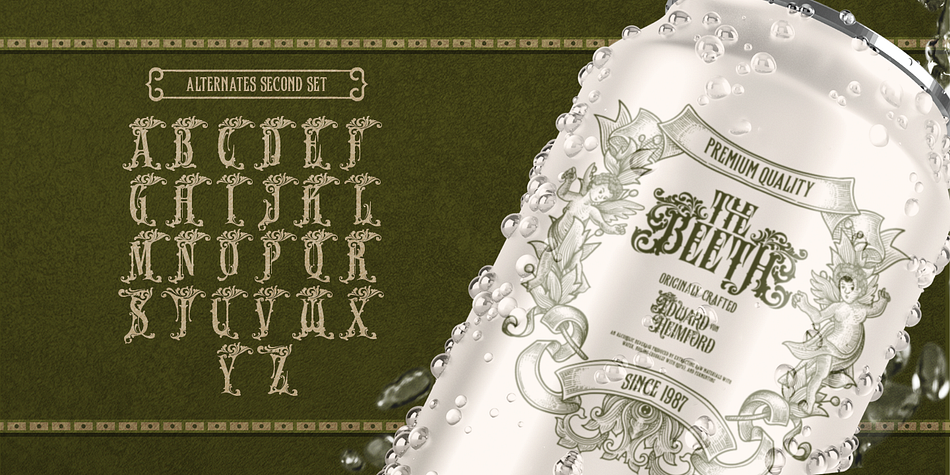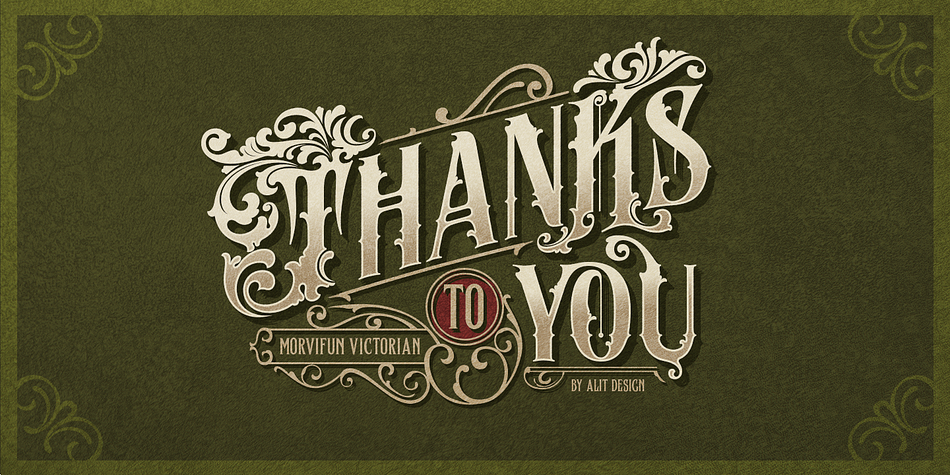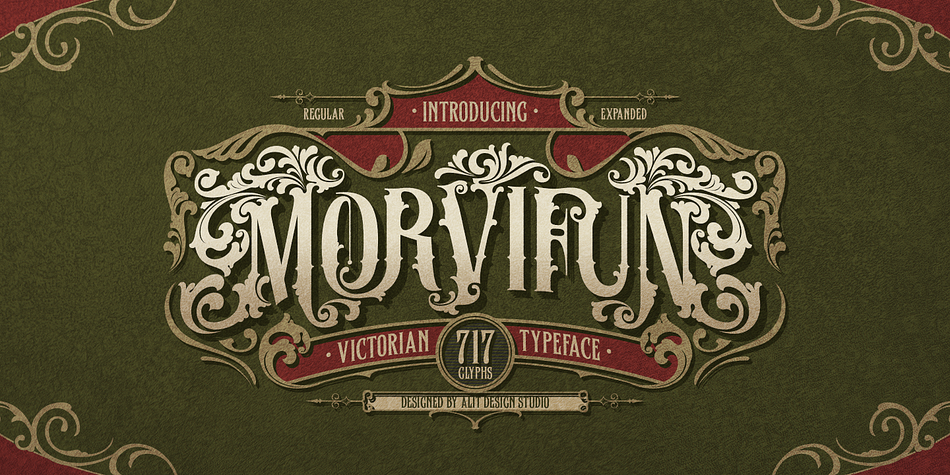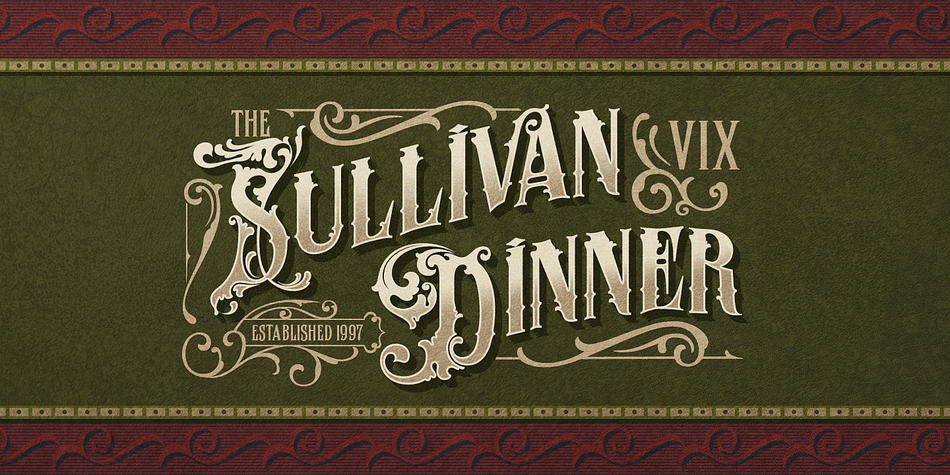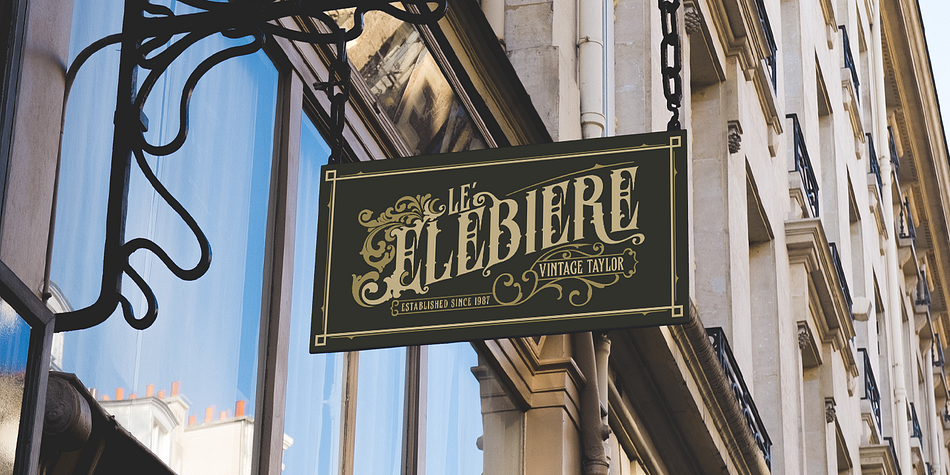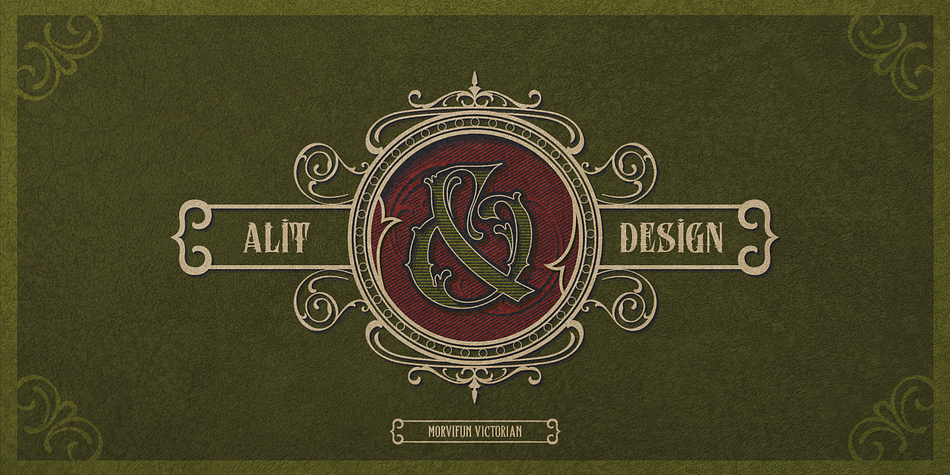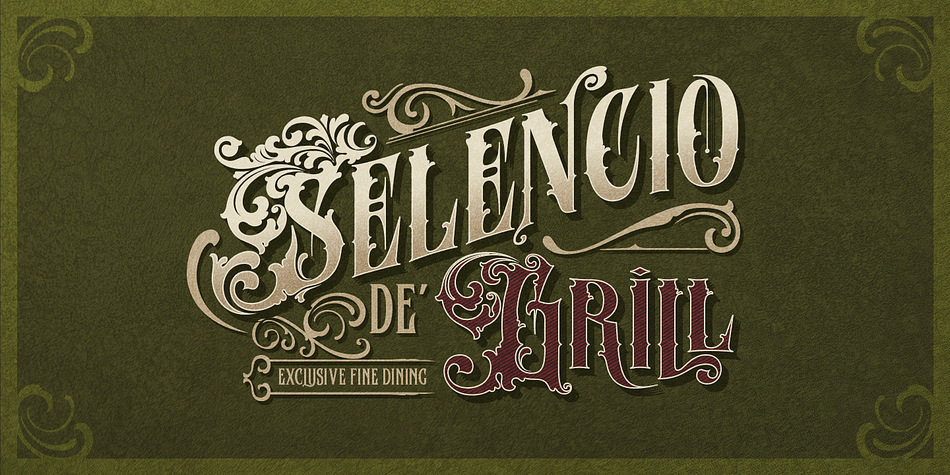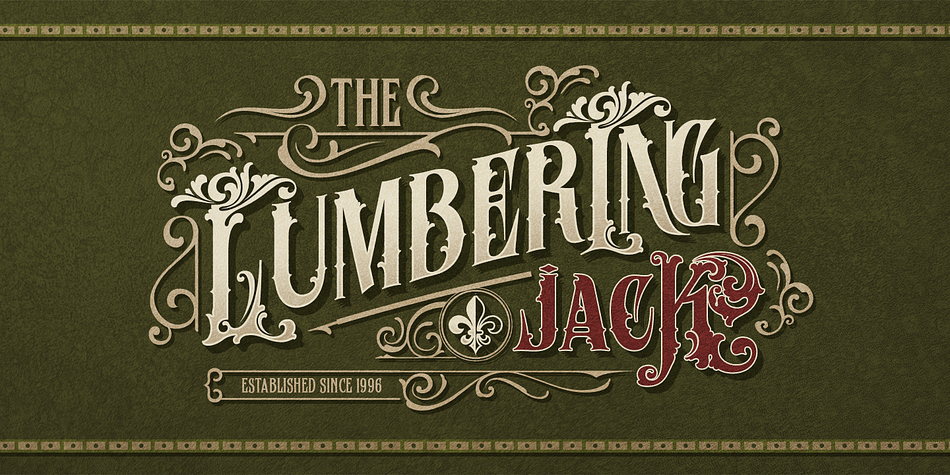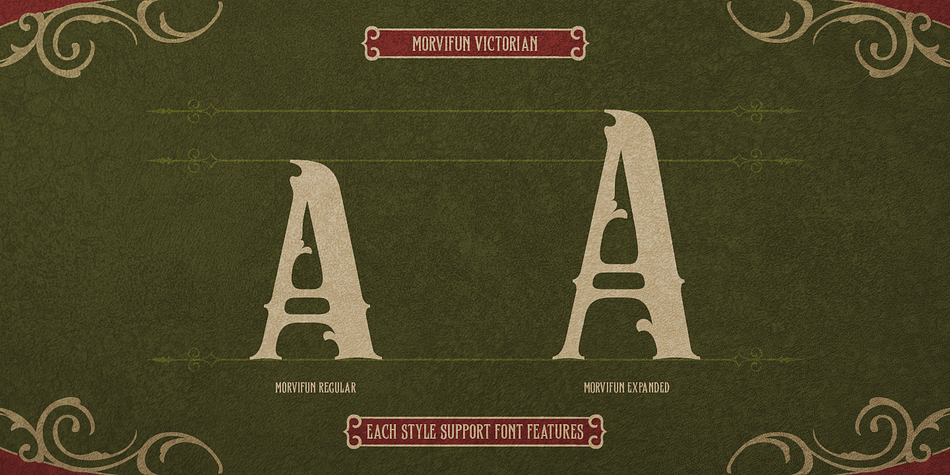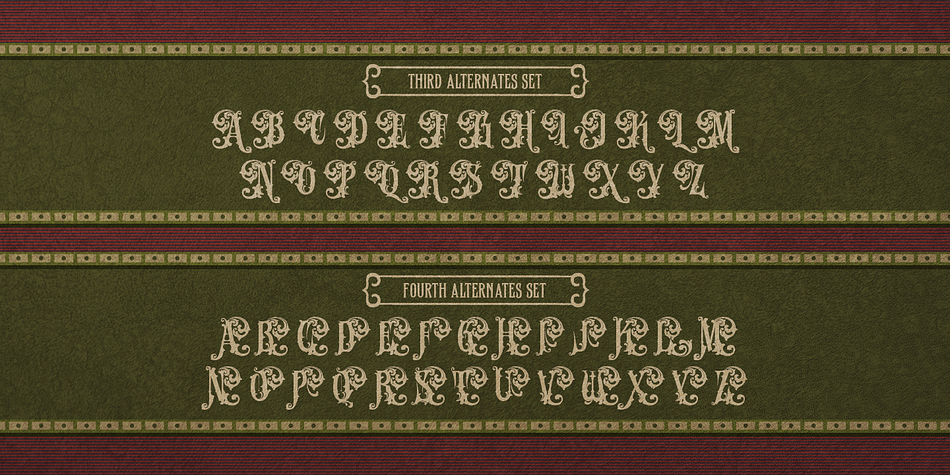
Morvifun
Designed by Alit Suarnegara, Morvifun is a blackletter, display serif and monograms font family. This typeface has two styles and was published by Alit Design.
Introducing “Morvifun” - a captivating font that combines the elegance of Victorian aesthetics with ornamental details. This classic serif typeface showcases the timeless charm of Gothic styles, resulting in a visually stunning and versatile product.
With a total of 717 meticulously crafted glyphs, Morvifun offers an extensive character set that enables you to express your creativity and bring your designs to life. From uppercase and lowercase letters to numerals, punctuation marks, and special symbols, this font provides a comprehensive range of options to suit your design needs.
The Morvifun font’s classic serif style adds a touch of sophistication and refinement to any project. The carefully designed letterforms exude an air of elegance, making it ideal for invitations, formal correspondence, branding materials, book covers, signage, and more. Whether you’re aiming for a vintage-inspired design or a contemporary piece with a hint of nostalgia, Morvifun is a reliable choice.
Unlock the enchanting world of Victorian aesthetics with Morvifun. Its fusion of ornamental intricacy, extensive glyph set, PUA Unicode support, and classic serif style make it a versatile font that captures the essence of Gothic beauty. Let Morvifun elevate your designs and transport viewers to a bygone era of grace and allure.